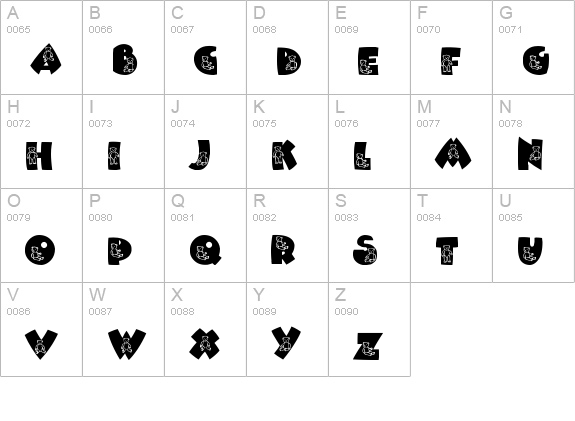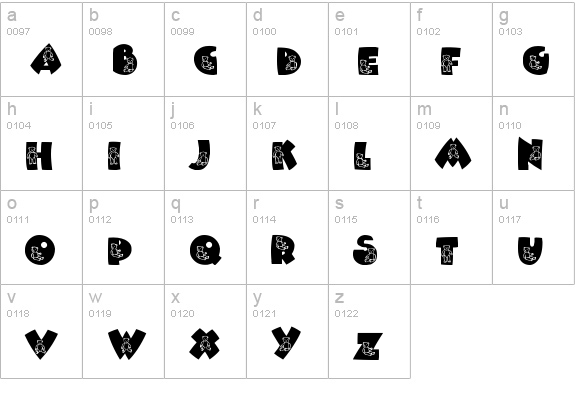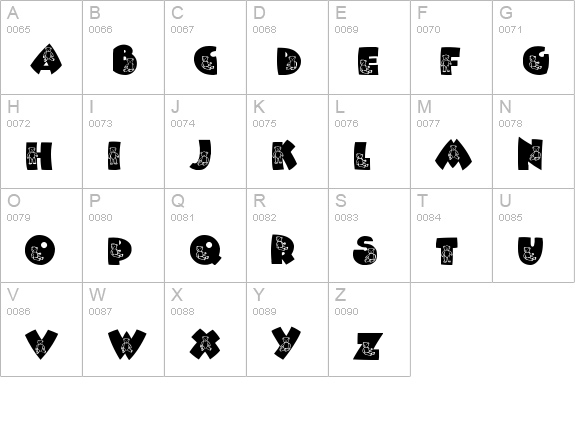
Sassys Teddys 2 Font Details
Sassys Teddys 2 font is a delightful and playful typeface that brings a touch of whimsy to any design project. With its cute and cuddly teddy bear-inspired letterforms, this font is perfect for adding a touch of sweetness to children's books, greeting cards, and other creative projects. But what makes Sassys Teddys 2 font even more special is that it is available for free! That's right, you can download this adorably charming font without spending a dime. Whether you're a professional designer looking to add a unique touch to your work or an amateur DIY enthusiast creating personalized gifts, Sassys Teddys 2 font is the perfect choice. With its smooth curves and friendly appearance, Sassys Teddys 2 font is incredibly versatile. It works well in both large headlines and smaller body text, making it suitable for a wide range of design applications. The attention to detail in each letterform is evident, with the teddy bear-inspired elements adding a sense of fun and playfulness. To get your hands on Sassys Teddys 2 font, simply head over to FontsMarket.com, where it is freely available for download. This means that you can start using this delightful font in your projects right away, without any hassle or cost. The user-friendly interface of FontsMarket.com makes it easy to find and download Sassys Teddys 2 font, ensuring a smooth and enjoyable experience for all. So why wait? Add a touch of whimsy and charm to your designs with the freely available Sassys Teddys 2 font. Download it today from FontsMarket.com and let your creativity soar!